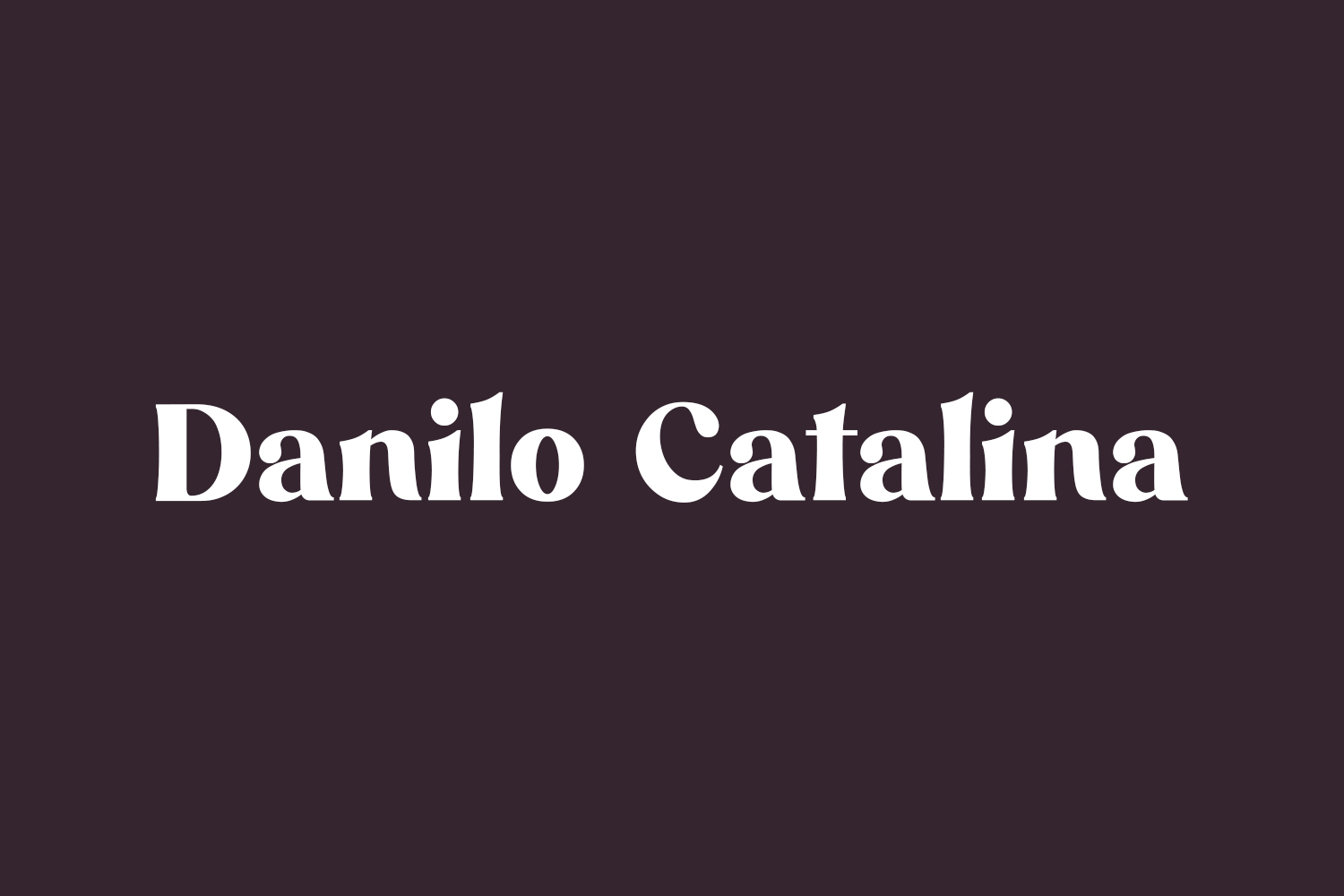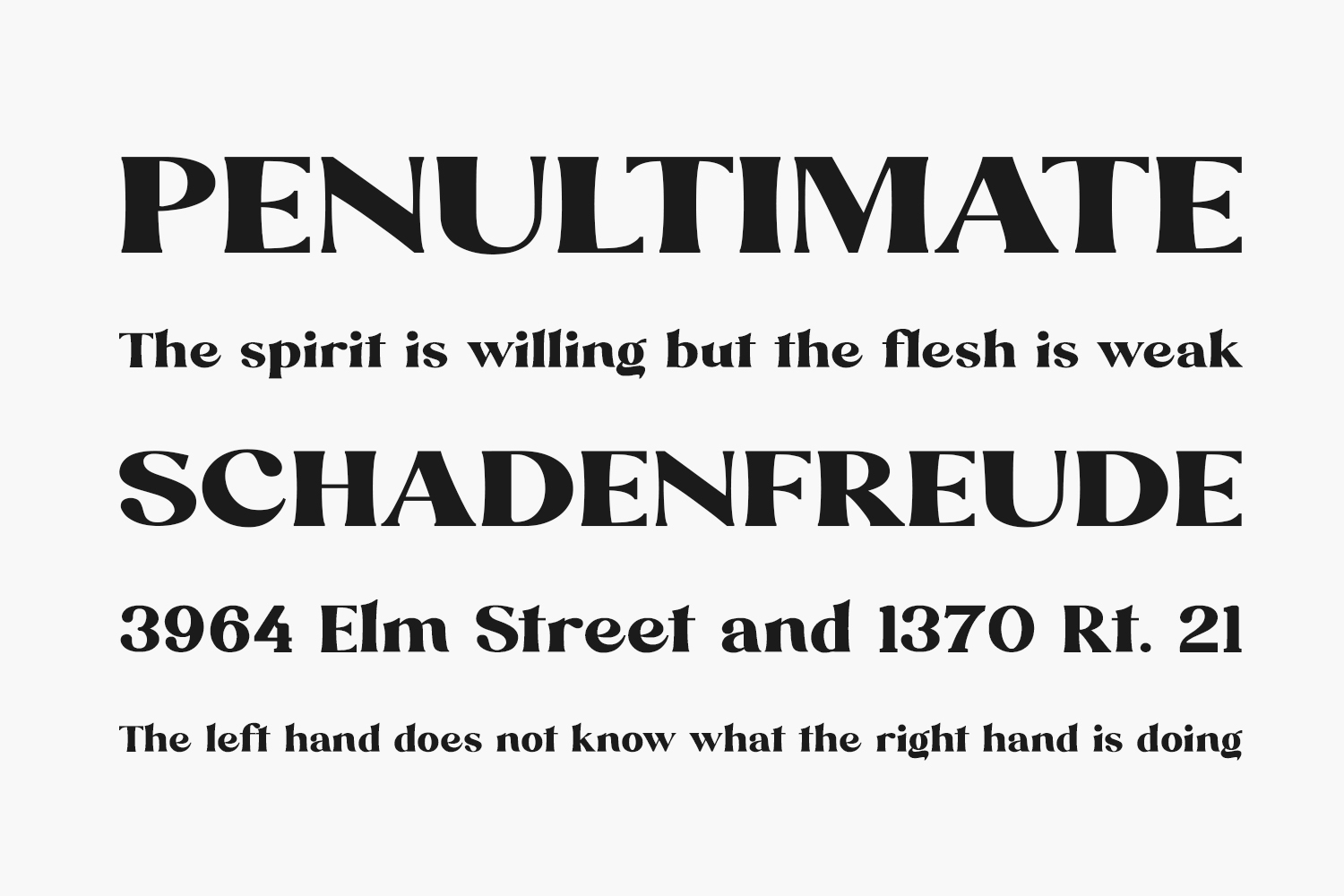
Danilo Catalina is a retro-inspired serif font by UI Creative that balances classic elegance with humanist warmth. Its clean lines and subtle curves make it an excellent choice for logos, wedding stationery, editorial headers, branding, packaging, and more. This free demo version is available in TTF format for personal use. To use it commercially, please purchase a license from the designer to unlock full rights and additional features. Ideal for both masculine and feminine designs, Danilo Catalina adds refined sophistication to any project.
Why Choose Danilo Catalina?
- Timeless Serif Style: Combines clean, geometric serifs with subtle humanist touches for modern-classic appeal.
- Elegant & Versatile: Suitable for stationery, logos, book covers, web headers, and fashion branding.
Where to Use Danilo Catalina?
- Logos & Branding: Classic and versatile for both formal and casual brand identities.
- Wedding & Stationery: Elegant text for invitations, save-the-dates, menus, and place cards.
- Magazine & Editorial Headers: Eye-catching headlines and pull-quotes with refined presence.
- Packaging Design: Great for upscale or boutique packaging that needs a touch of sophistication.
- Web & Print Headers: Enhances clarity and elegance in primary textual elements.
Design Tips with Danilo Catalina
Use Danilo Catalina in sizes 18pt and up to showcase its serif character. Pair it with a clean sans-serif like Prestij or Eurofurence for balanced contrast. Keep color palettes refined — neutral tones or soft pastels work beautifully. Let generous line spacing and kerning highlight its classic proportions.
- Glyphs: Uppercase (A–Z), lowercase (a–z), numerals, punctuation, basic Latin characters
- Language Support: English (Basic Latin), plus Western European characters—total ~189 glyphs